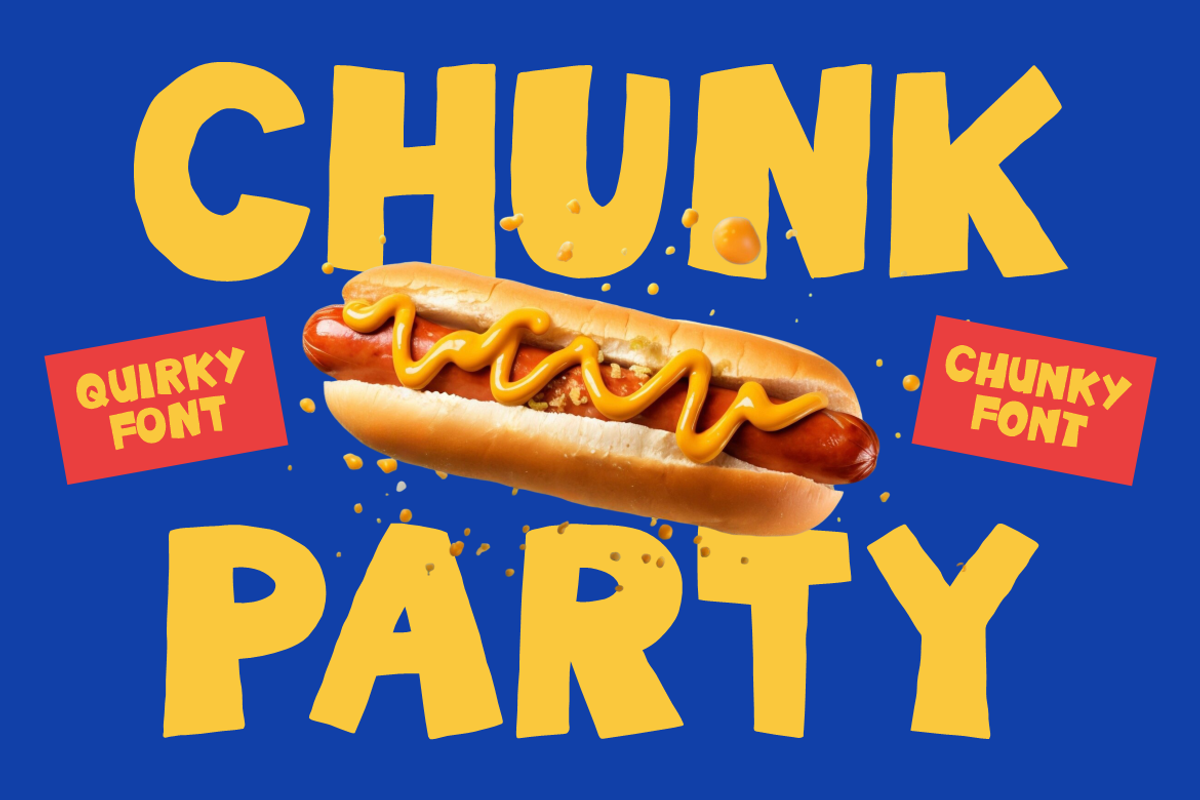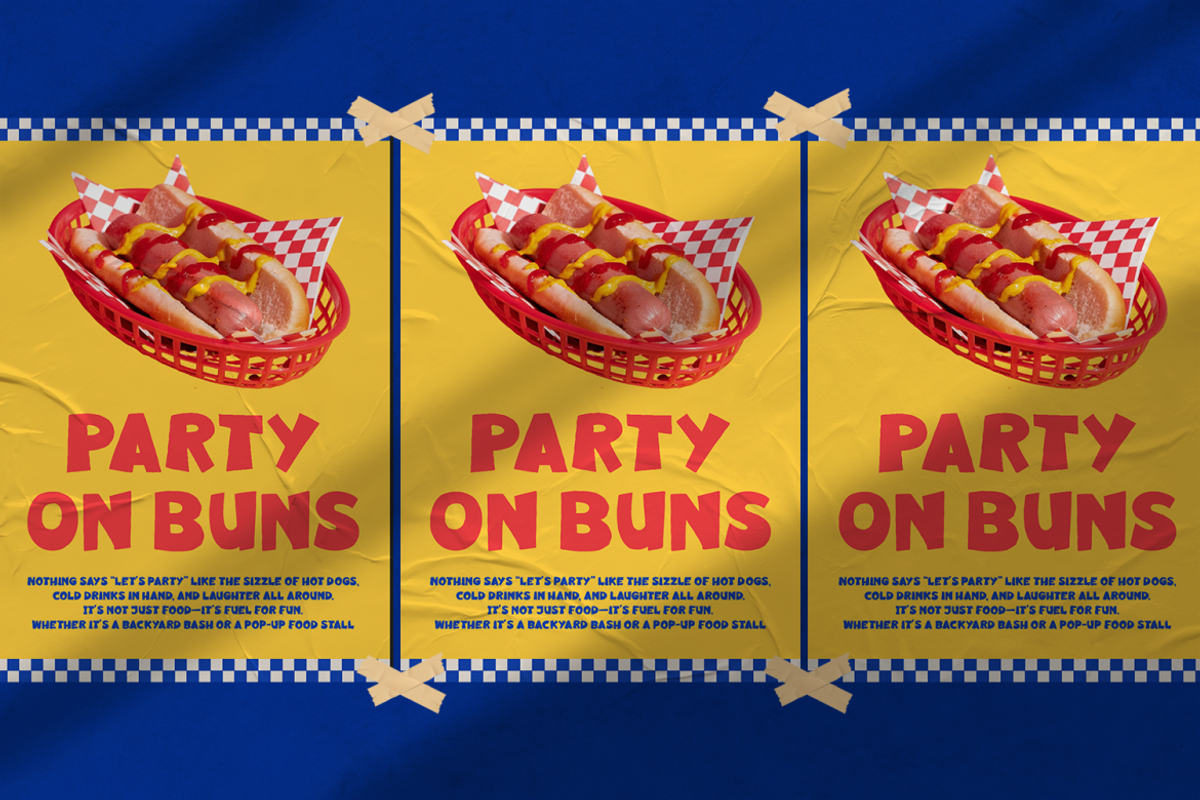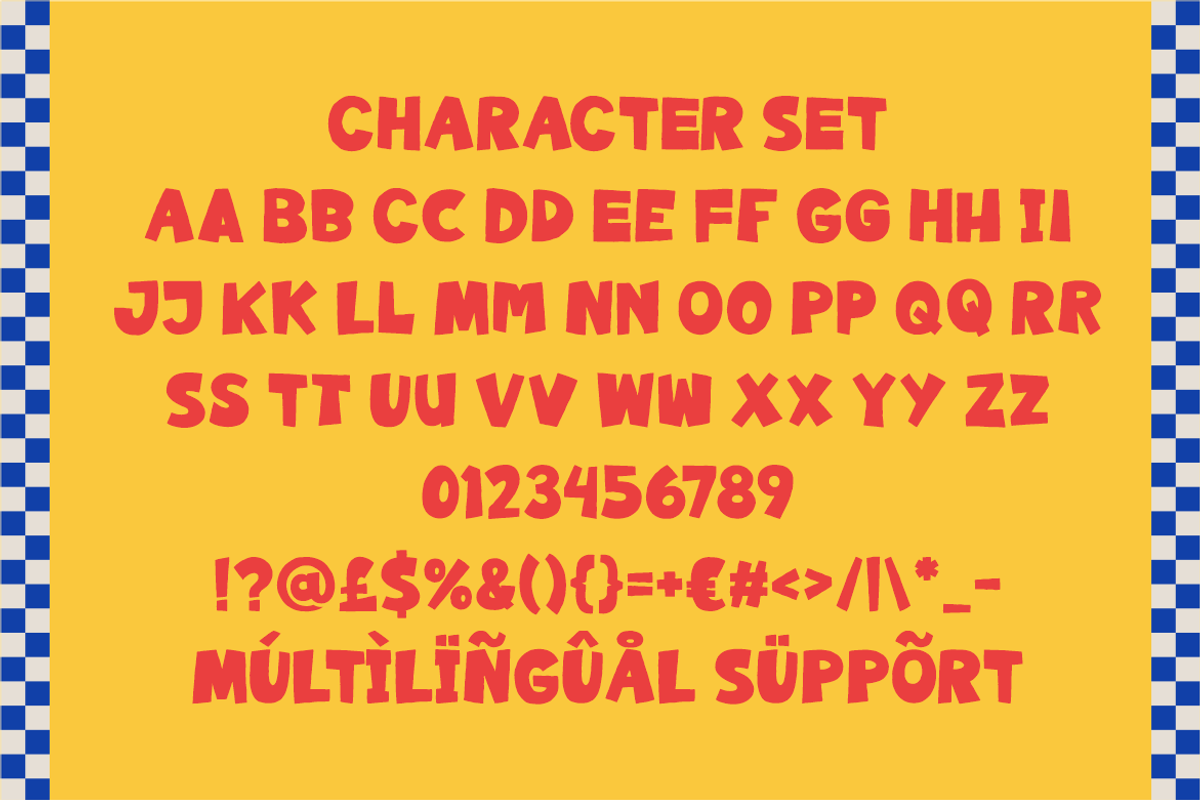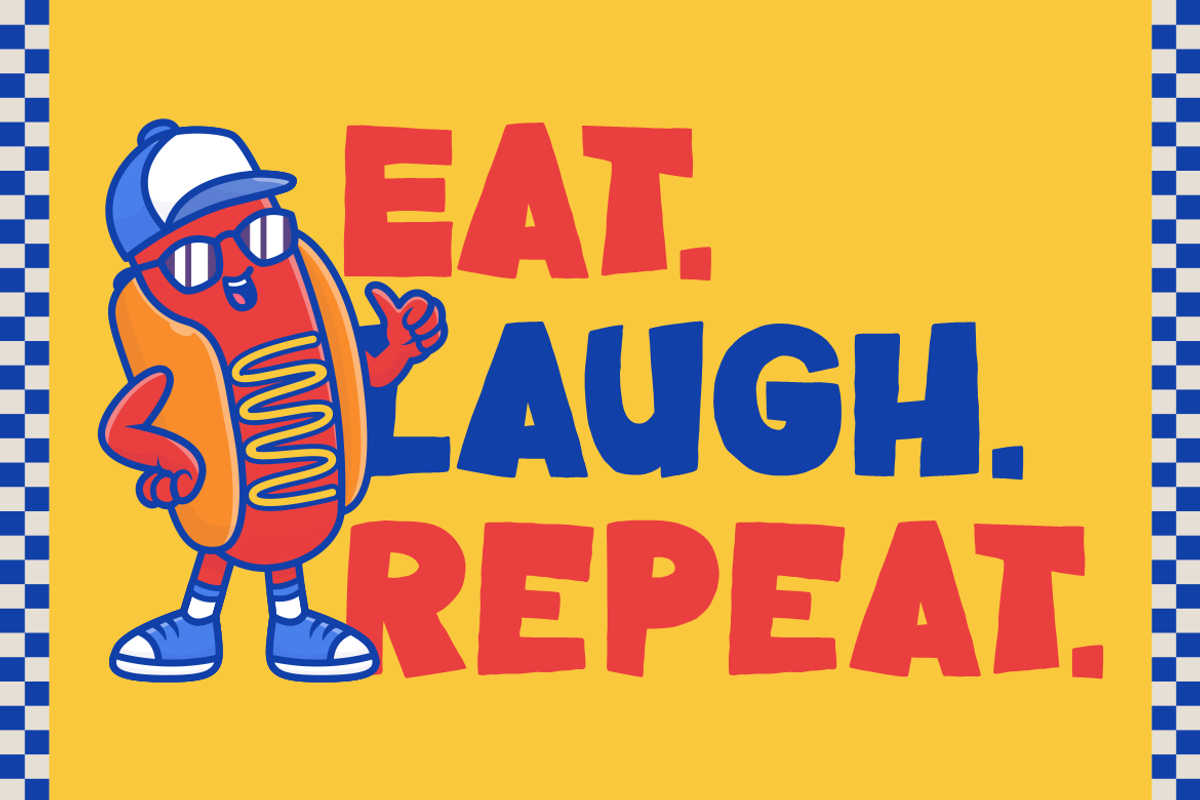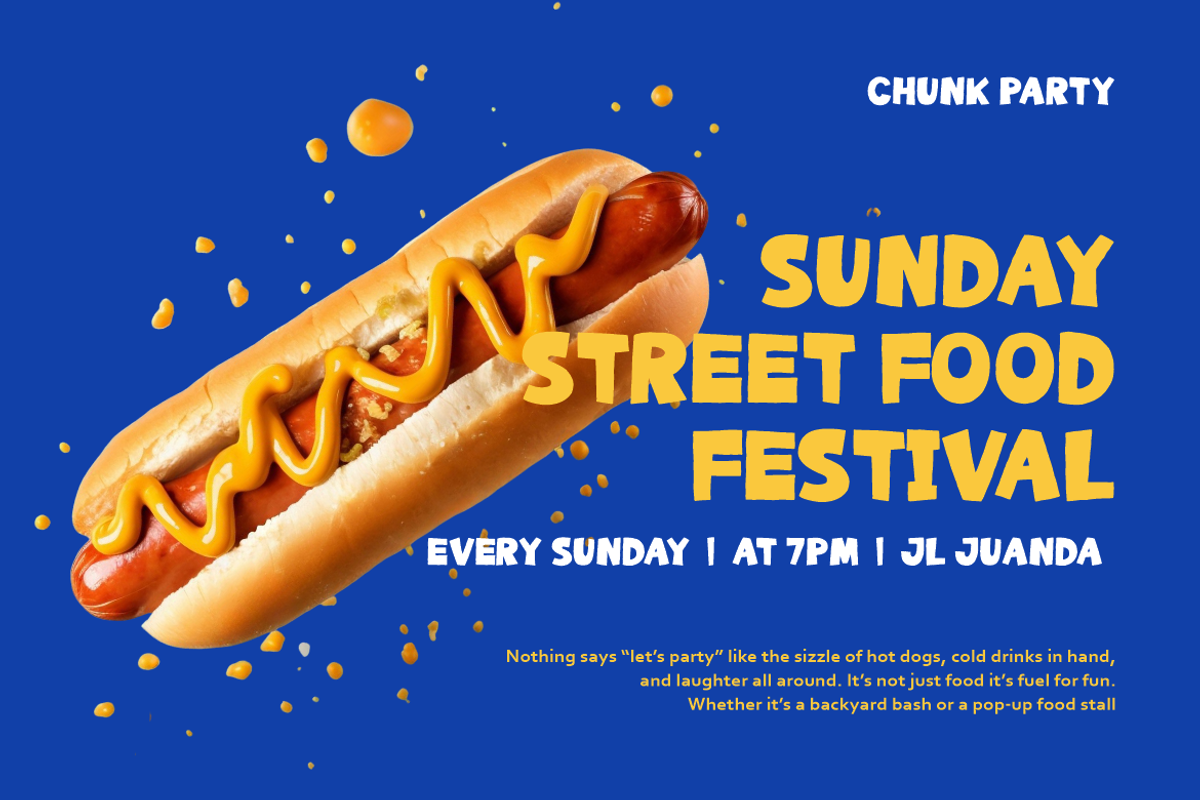
Chunk Party Quirky And Chunky Font
Chunk Party Quirky and Chunky Font brings a burst of flavor and personality to every design. The font features thick, uneven letterforms with playful edges that create a lively and dynamic appearance. Each character is bold and chunky, giving a handmade, casual vibe while keeping excellent readability. The rounded yet irregular shapes make it feel energetic and full of movement, evoking the cheerful spirit of food trucks, fast-food branding, and street festival posters. The balance between boldness and imperfection gives it a friendly, approachable look that instantly grabs attention. Chunk Party Quirky and Chunky Font captures the essence of fun typography that turns simple words into eye-catching visuals.
Perfect for logos, branding, packaging, posters, restaurant menus, and event promotions, this font is ideal for projects that need humor and joy. Its strong visual weight makes it stand out in advertisements, product labels, and playful digital designs. Whether you're designing for fast food, snacks, beverages, or lifestyle brands, this font adds a delightful handmade touch that feels both modern and nostalgic. Chunk Party Quirky and Chunky Font helps designers create engaging, upbeat messages that spark smiles and boost appetite. It’s a typeface made for celebration — bold, funky, and full of fun flavor.